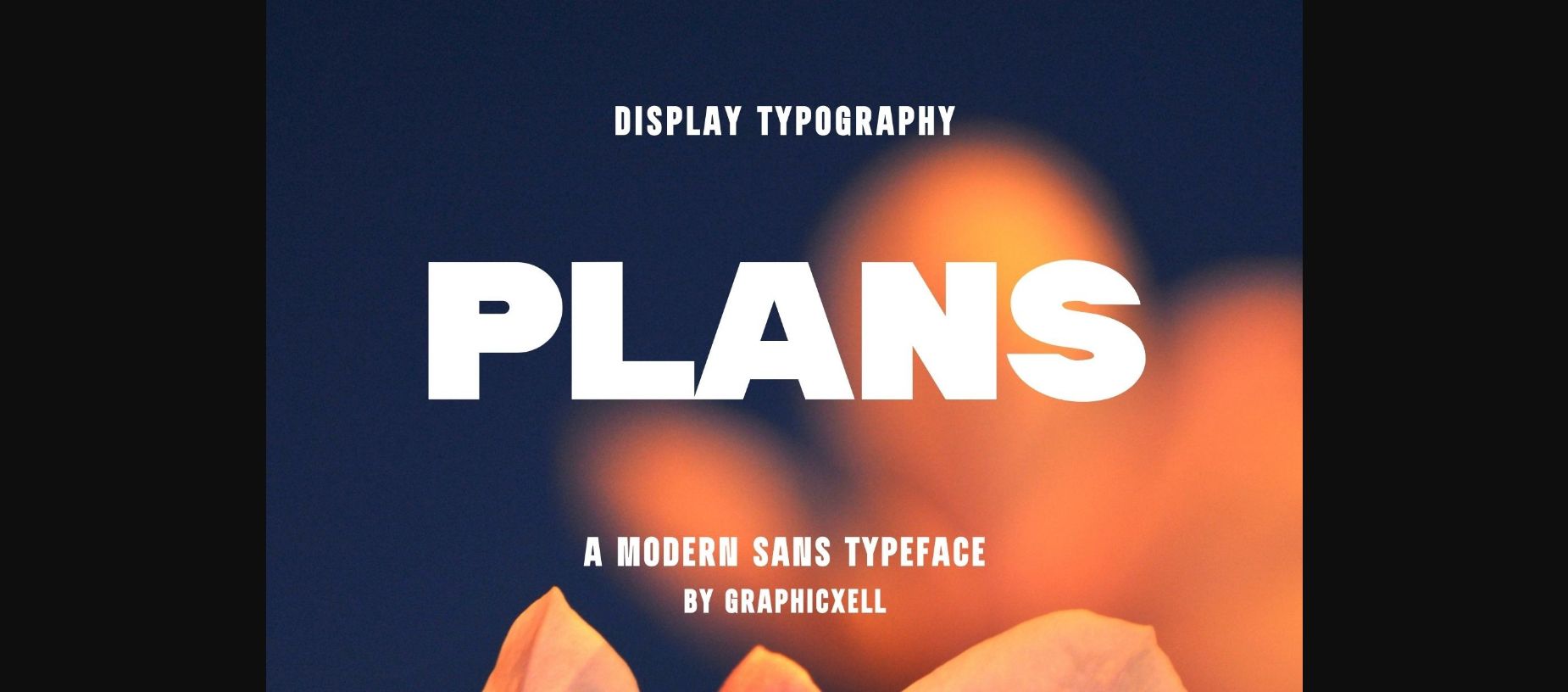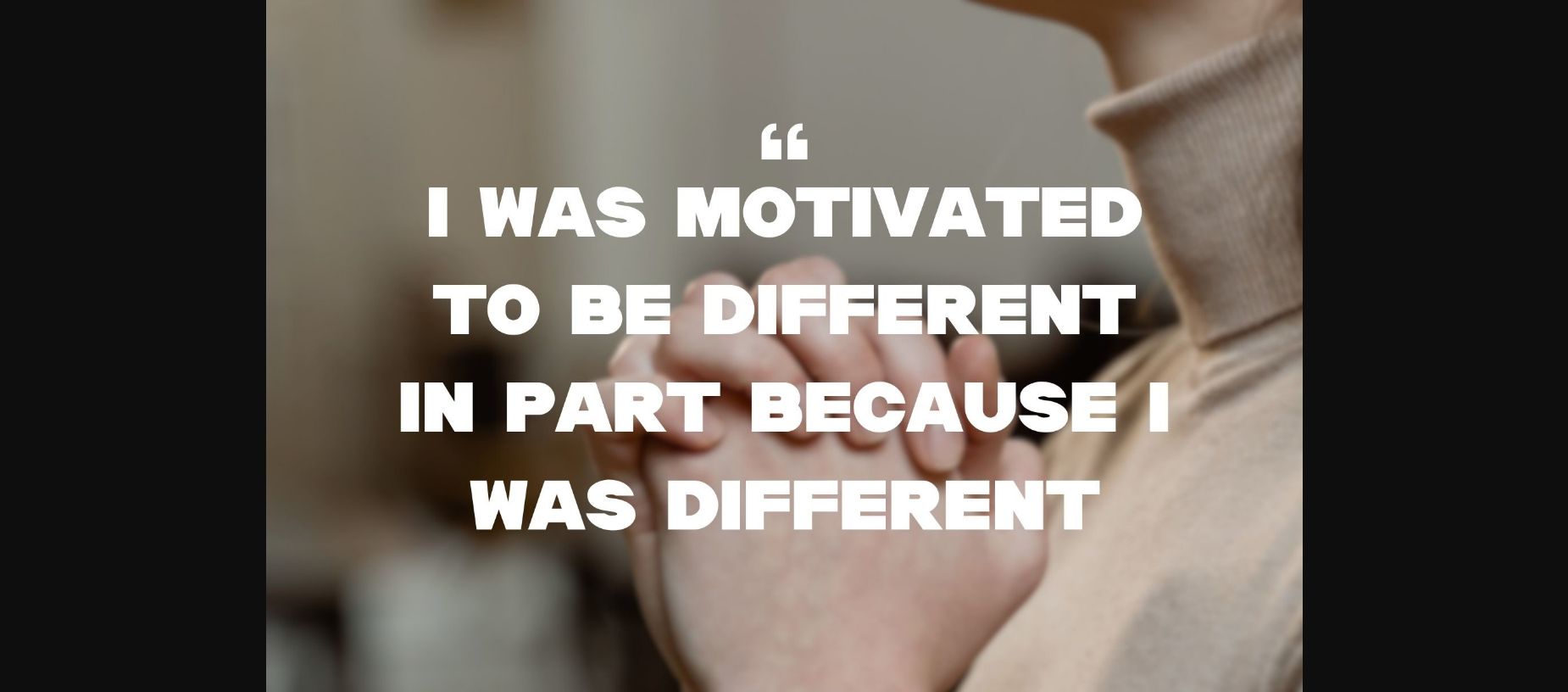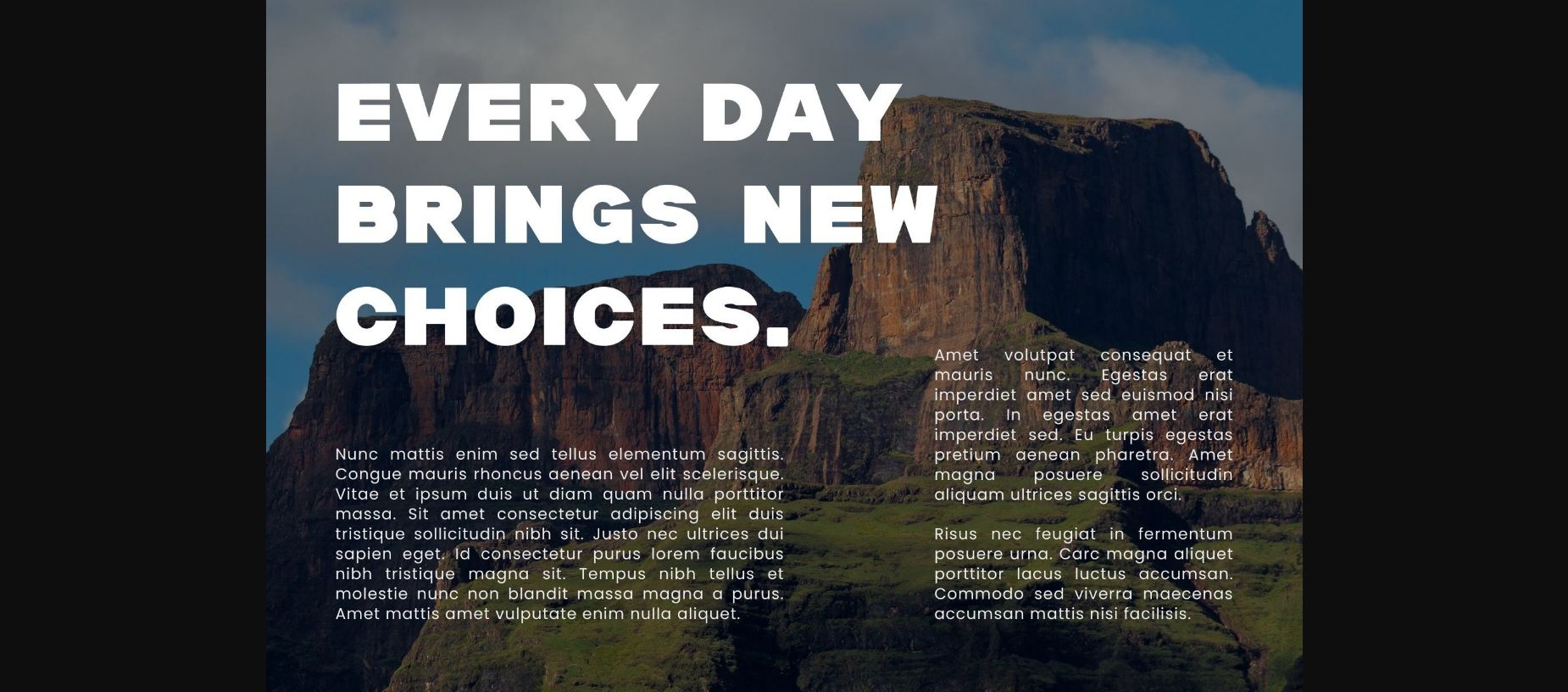
About Plans Font
Inspired by the famous minimalist logo, Plans is perfect for the purpose of designing templates, brochures, videos, advertising branding, logos, invitation, layout design, elegant crafting, beauty design and other